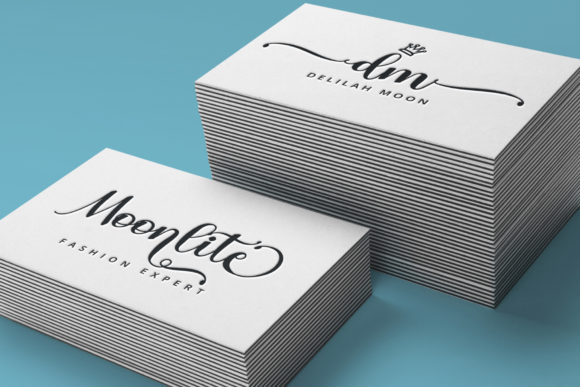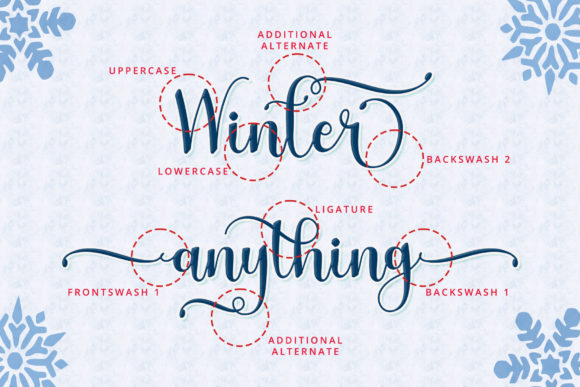
Winter Anything Font
db-ku.com - Script & Handwritten -- Winter Anything is beautiful and elegant script font. Winter Anything font is perfect and stunning for many designs, from wedding invitation, greeting card, social media quotes, branding, logo, and many more.